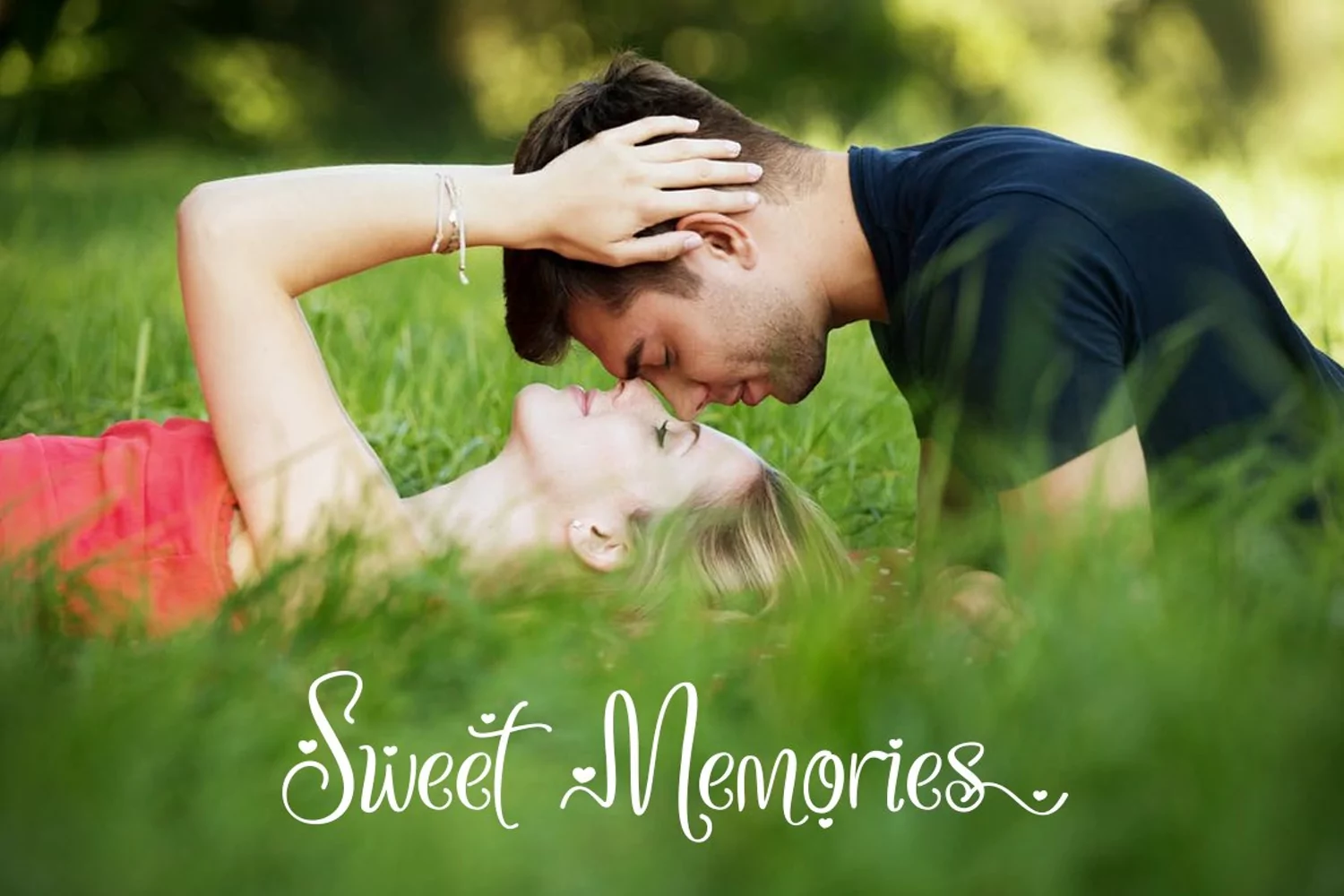
Miss Naa Font is a beautiful handmade, modern, unique & fresh font. Miss Naa Font suitable for logo, branding, invitation, greeting card, signature, poster and any design that you create.